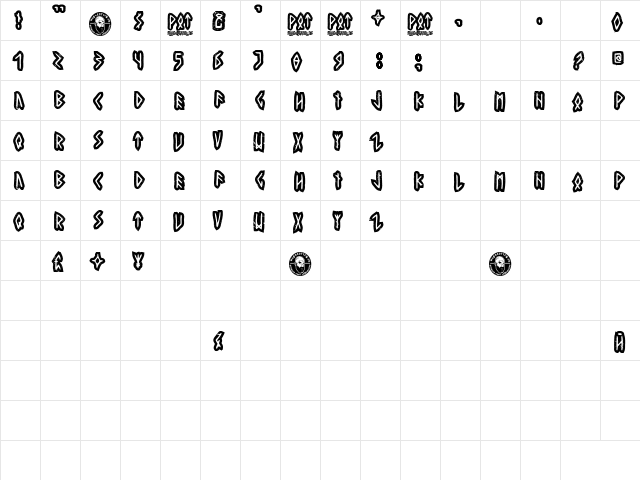
Property of Thor Regular
| Designer | Woodcutter Manero |
Design Context for Property of Thor Typeface
Property of Thor is a composed and adaptable typeface that performs quietly and consistently across a wide range of design contexts.